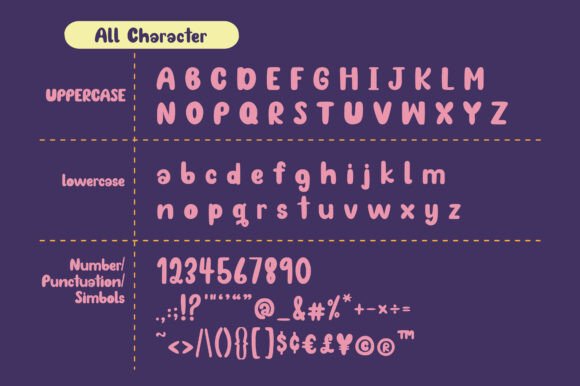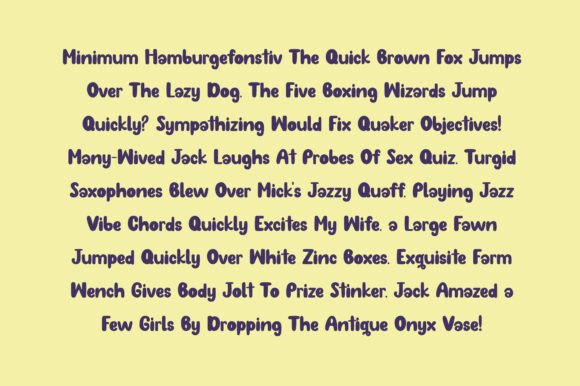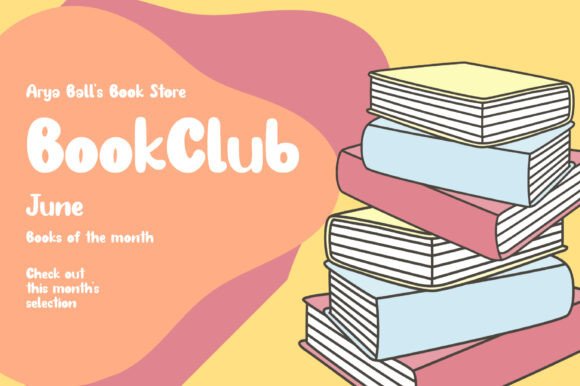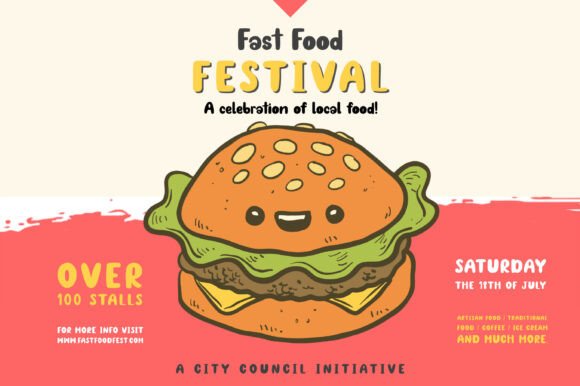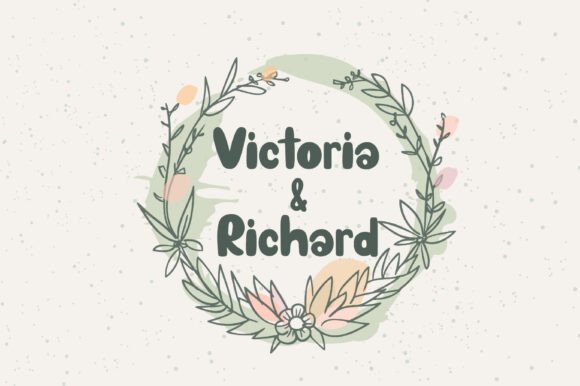
Introduction to Dreamy Bubble Font
Dreamy Bubble is a cute, bold handwritten font with a playful and bubbly style.
Its round, soft letters make it perfect for adding a fun and cheerful touch to your designs .
Key Features of Dreamy Bubble Font
Why Choose Dreamy Bubble Font?